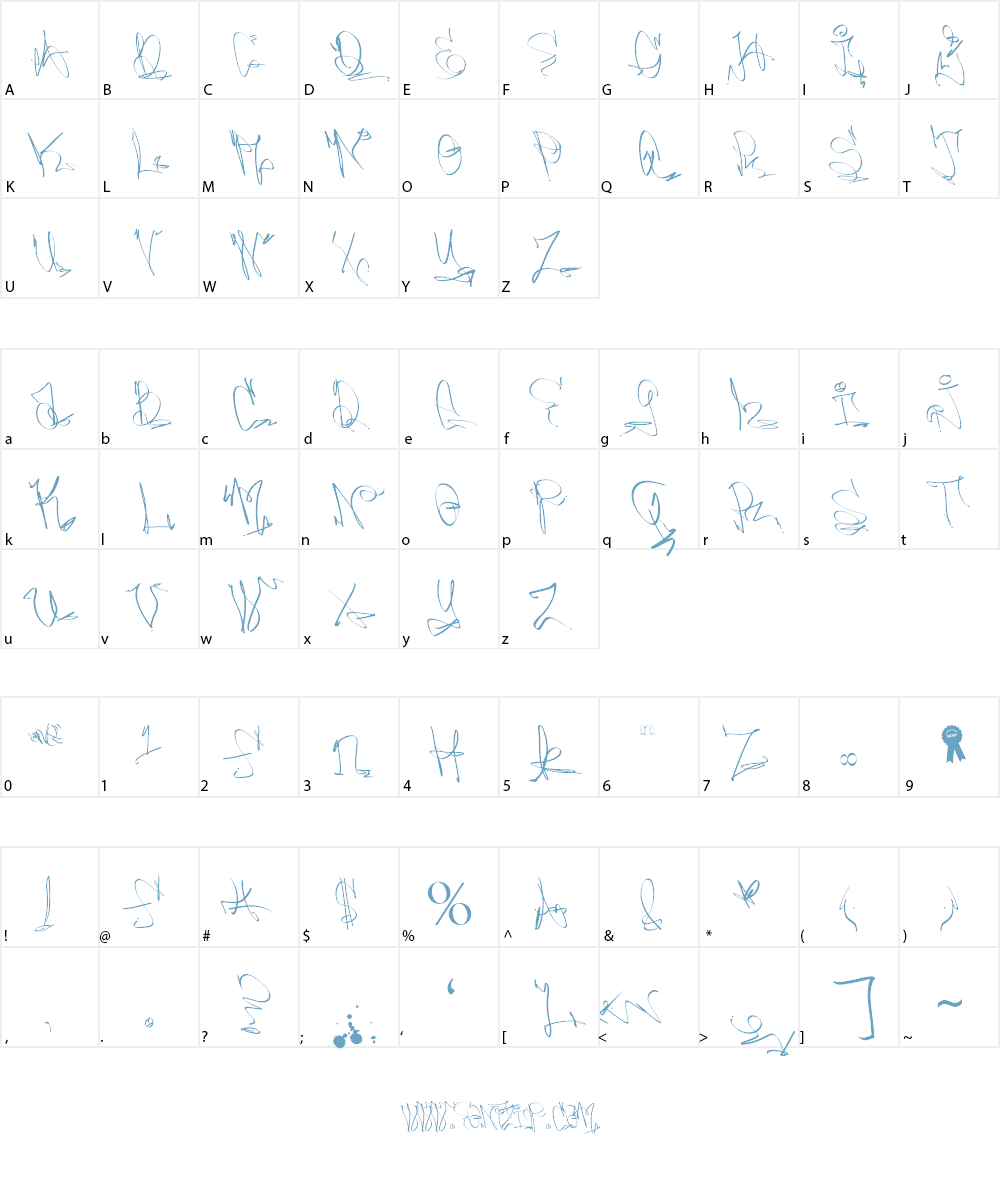
Best Of Merit Font: one of the hardest parts of graffiti font design is to get the letters to flow as you see in true writing. I spent some time with this one. With this font you MUST experiment with both upper and lowercase lettering selection to create different variations of word flow.